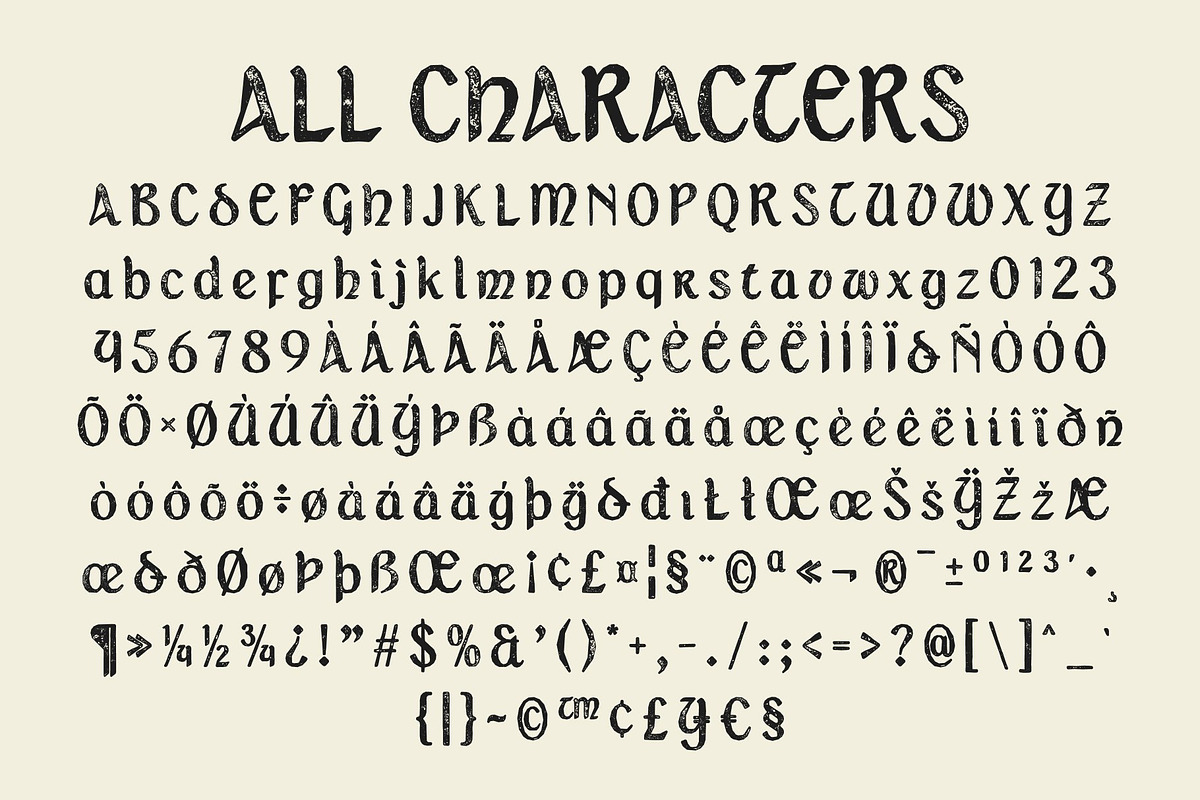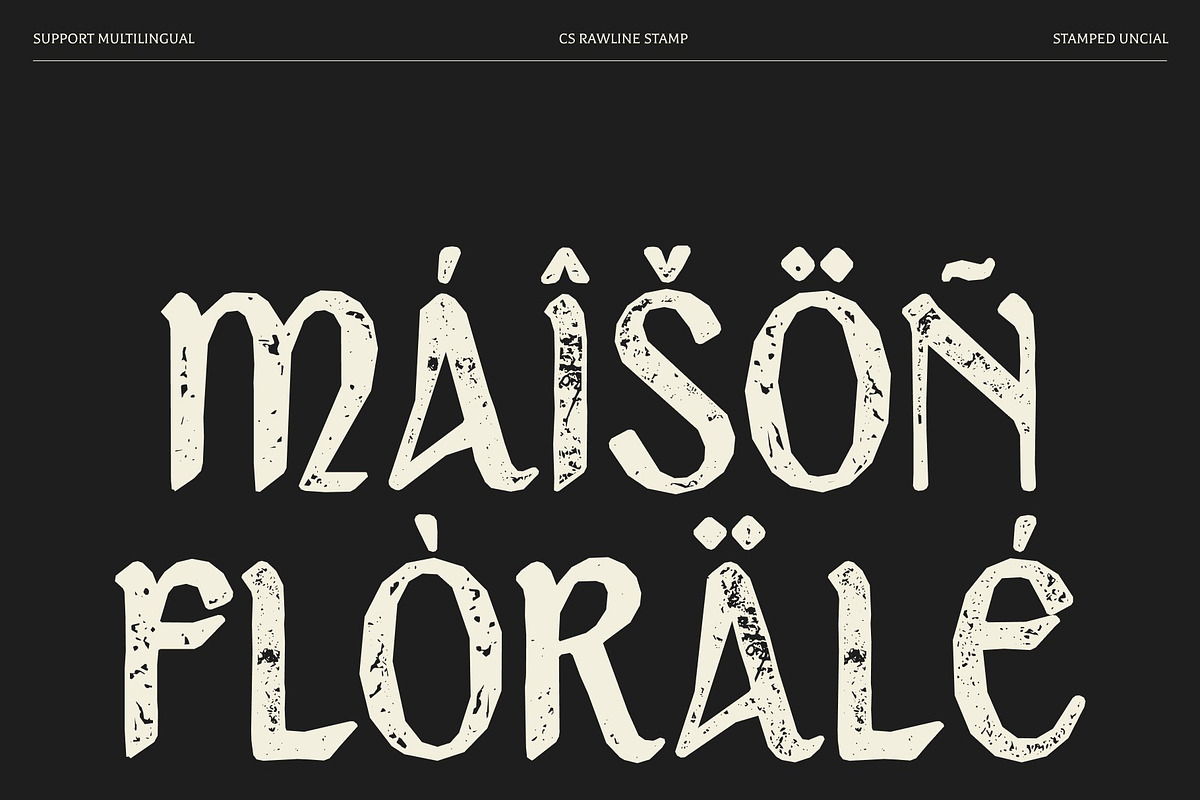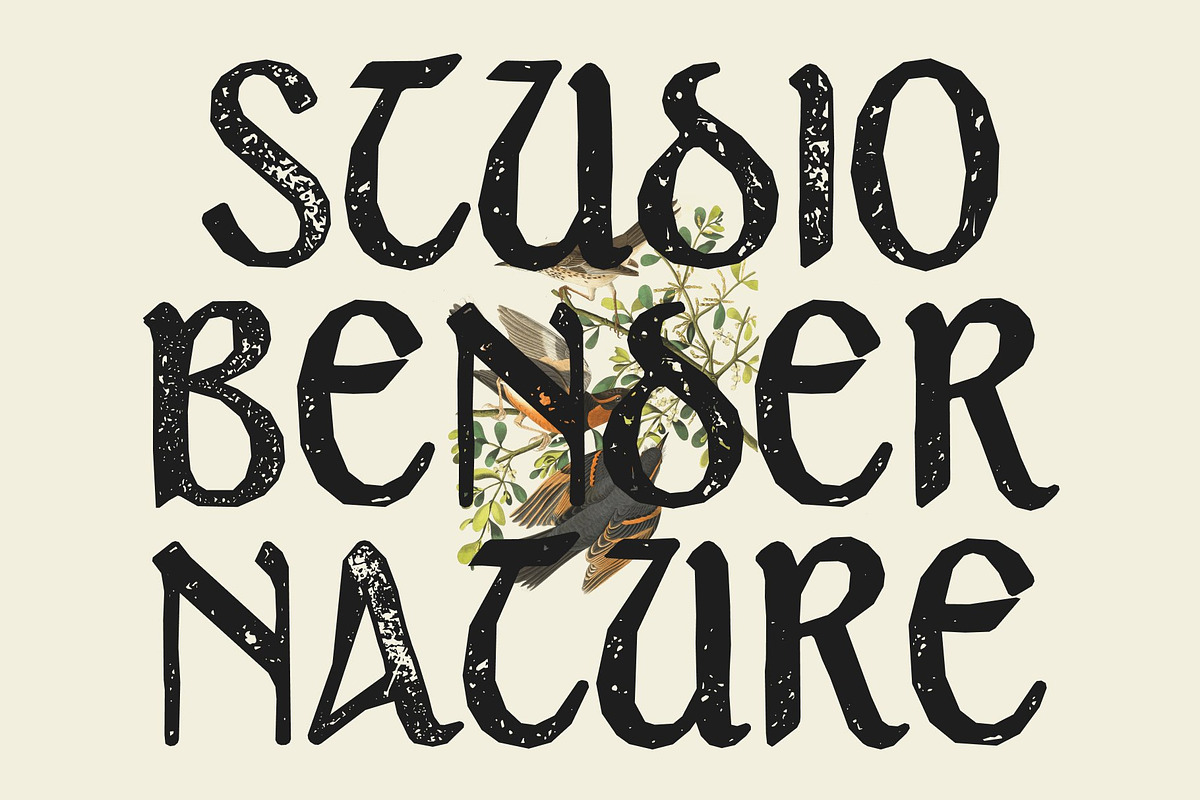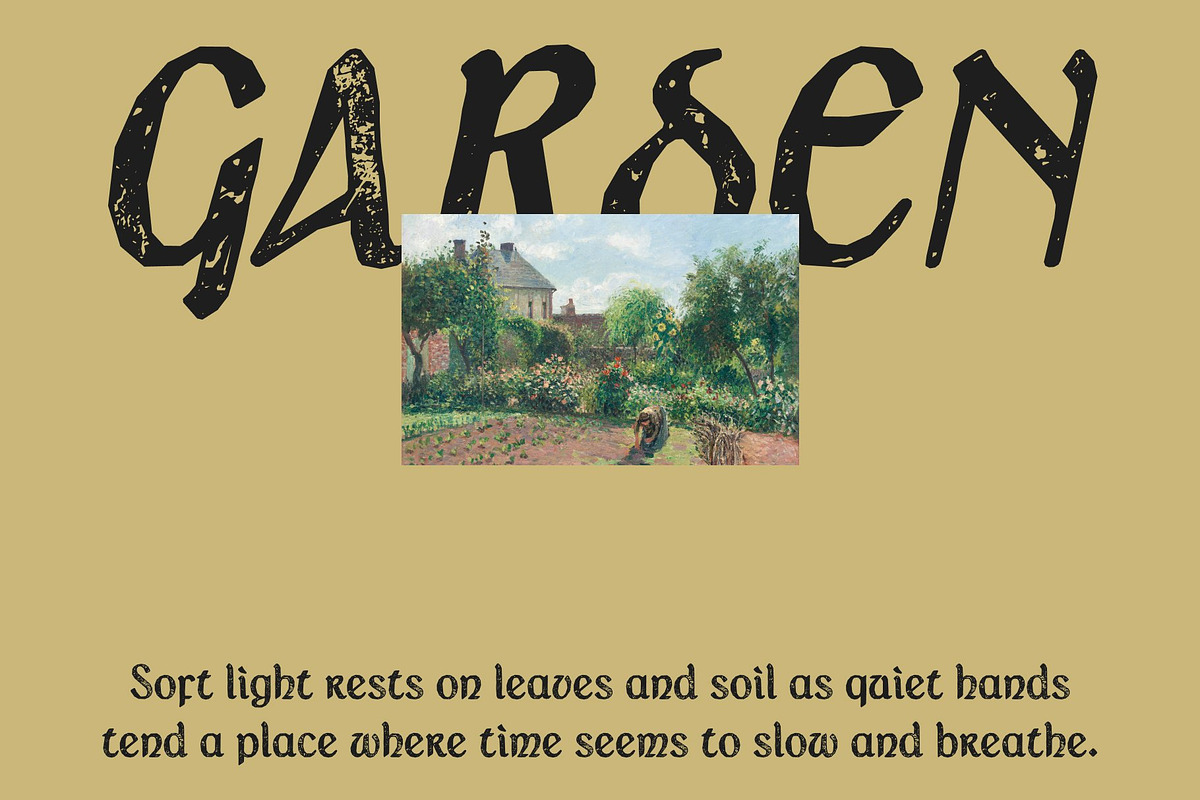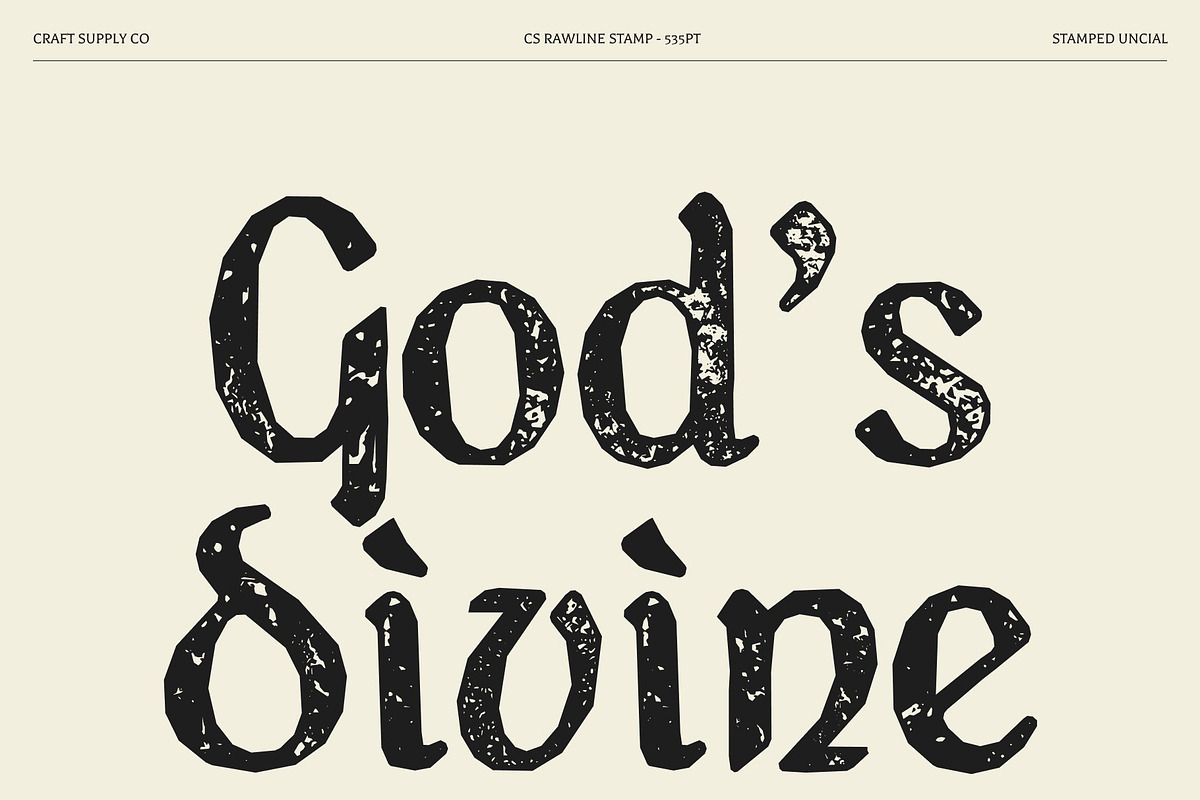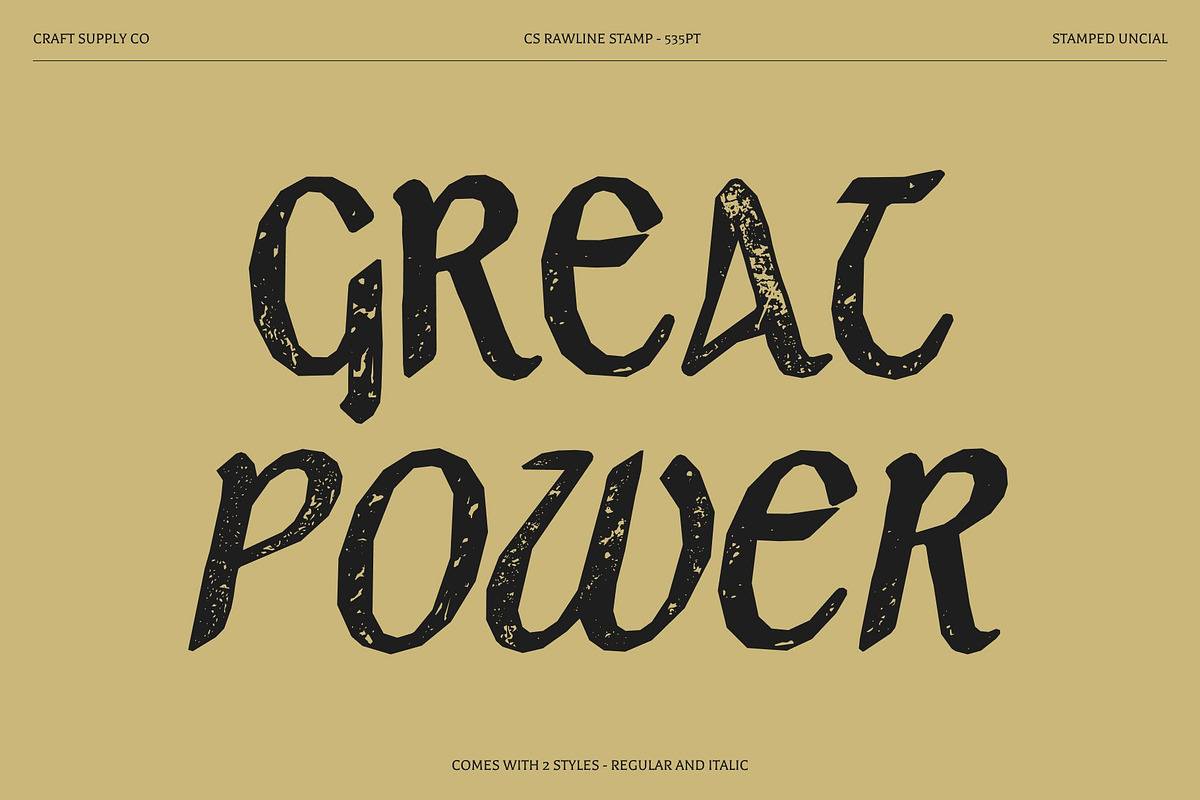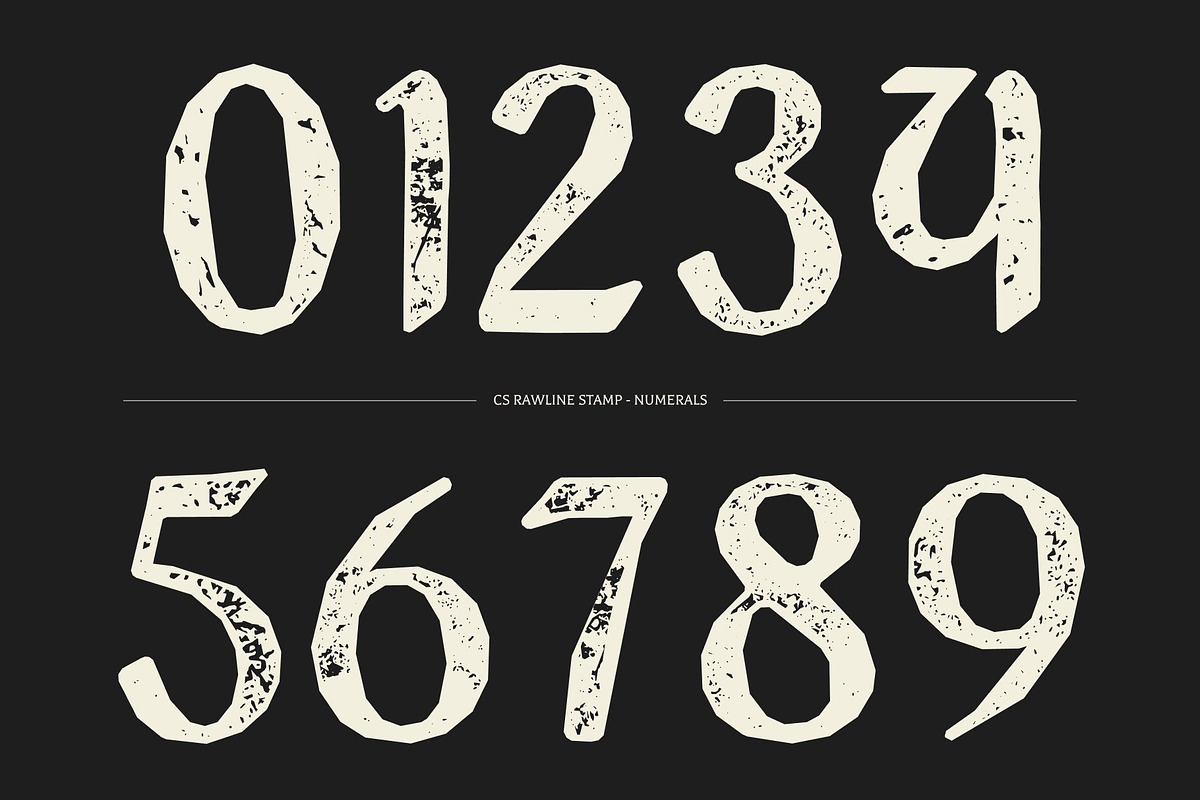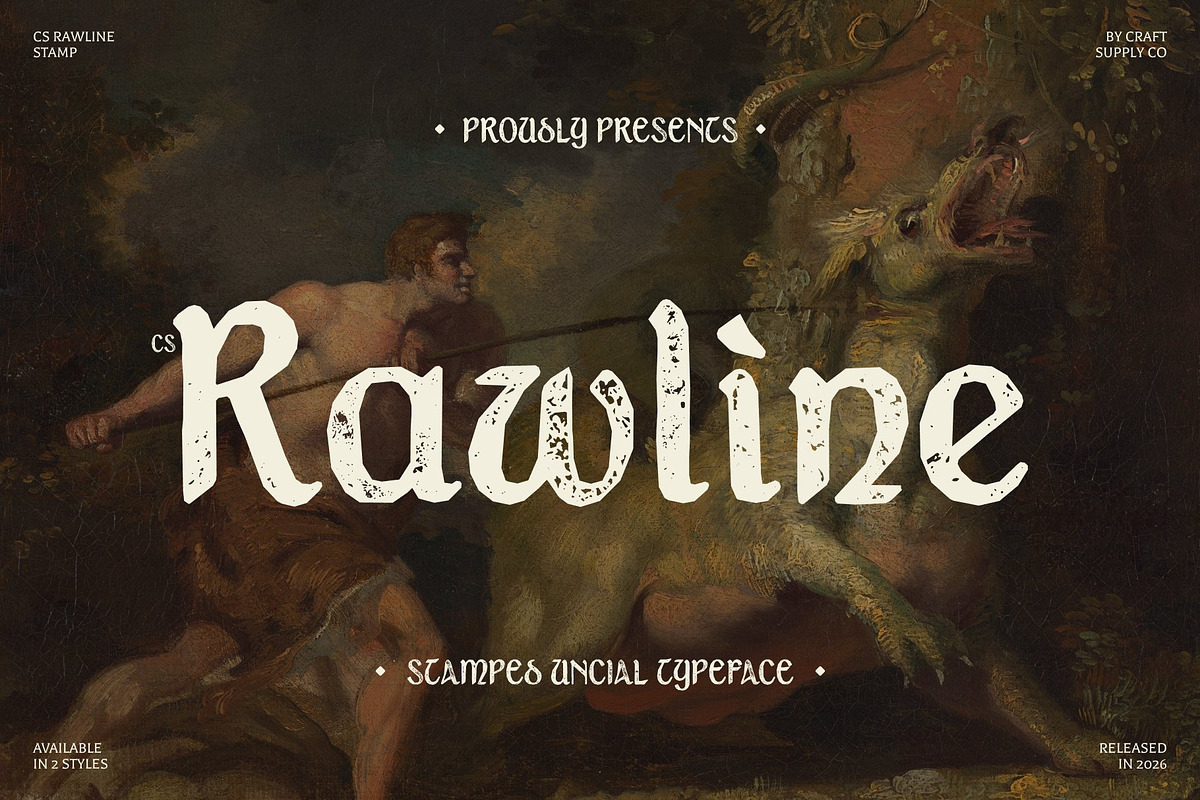
CS Rawline Stamp
CS Rawline Stamp – Uncial Display Font: Where Timeless Manuscript Elegance Meets Vintage Stamp Texture
Classic Uncial Forms with Historical Sophistication This is a display font inspired by classic uncial lettering, featuring smooth curves, rounded strokes, and distinctive proportions reminiscent of ancient manuscripts. Its graceful historical forms create a refined visual identity filled with elegance, heritage, and artistic sophistication. Every character feels carefully crafted and expressive, making the font perfect for projects that seek timeless beauty and cultural depth.
Stamp Texture with Authentic Vintage Character This font features rough and uneven detailing that adds vintage authenticity and tactile visual depth. This textured finish creates a worn handcrafted appearance reminiscent of antique prints, aged parchment, and traditional stamping techniques. The result is a design that feels artistic, historic, and full of expressive charm.
Historical Elegance with Handmade Artistic Appeal This font delivers a typographic identity that feels luxurious, authentic, and visually immersive. Its rounded manuscript forms combined with vintage texture evoke illuminated texts, classical calligraphy, heritage aesthetics, and timeless editorial artistry.
Perfect for Luxury Branding and Heritage Visuals Perfect for luxury branding, formal invitations, editorial layouts, packaging, historically inspired visuals, book covers, certificates, posters, and premium promotional materials. Its textured uncial forms make it ideal for logos, headlines, signage, and visual identities that seek sophistication with authentic historical character.
CS Rawline Stamp Regular
CS Rawline Stamp Italic